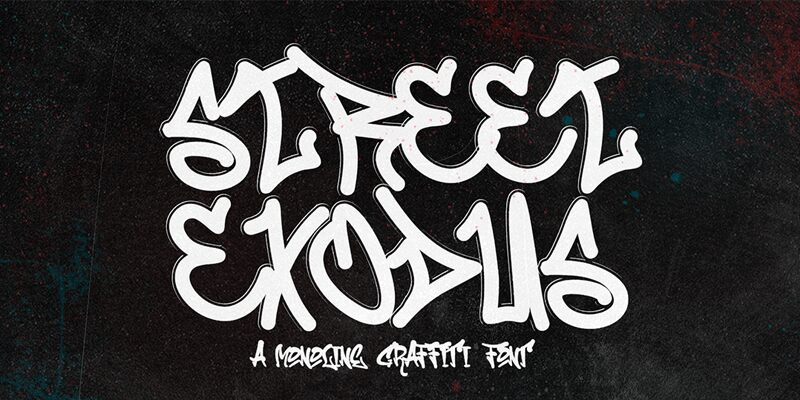
Street Of Exodus
Street of Exodus, a graffiti-inspired font crafted by Cikareotype Studio, exudes an edgy, urban vibe that captivates the senses. The bold, expressive letterforms convey a raw energy, accentuated by dynamic curves and jagged edges that evoke the spirit of street art. This font's distinctive character imbues designs with a gritty, rebellious charm, making it a compelling choice for projects seeking to convey a sense of rebellion, defiance, or underground culture.
The versatility of Street of Exodus shines through its adaptability to diverse design contexts. Its striking visual presence lends itself well to branding, packaging, and editorial projects that aim to make a bold, impactful statement. Equally, this font's capacity to capture the essence of urban subcultures makes it an excellent selection for music, event, and fashion-related designs that seek to connect with a youthful, edgy audience.